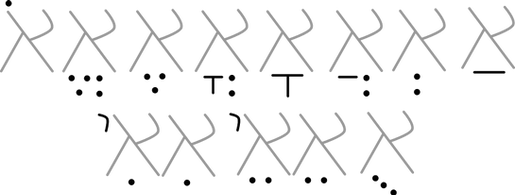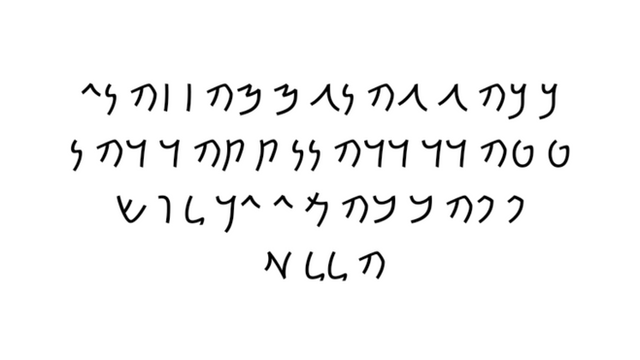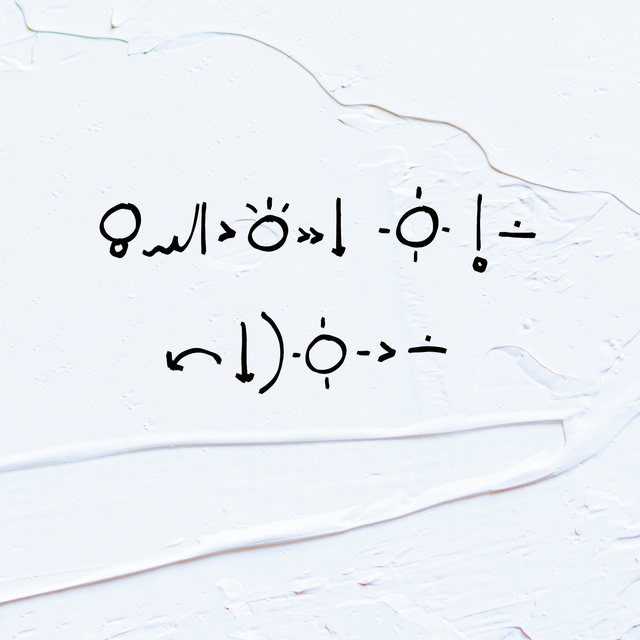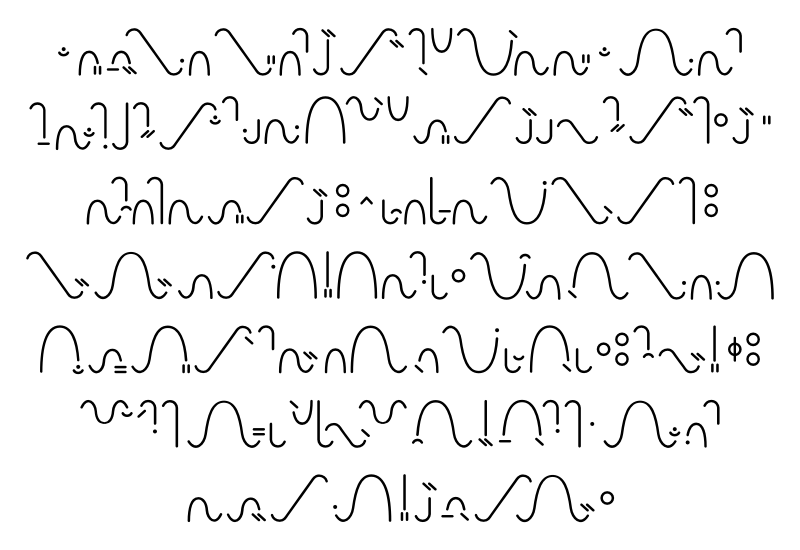
This maps each glyph by shape on the keyboard. Vowel makers than are not solo have to be added manually.
Hi, I showed this font to my friends and Linguistics teacher and everyone I have showed this to thinks this is a really interesting font to use and I love the amount of work you put into creating this. My only problem is that the sounds don't match the Qwerty keyboard; it makes it difficult to type without looking at the keyboard document constantly. The only things I would change would be to match the symbol to the letter on the key. And if it were possible some kind of typing system that would allow the proper combination of vowels and consonants; ex: typing using a Japanese keyboard that changes the individual characters into kanji. I hope this font can be used more widely; it's a very elegant font.
Yeah, I know the layout is a bit weird; I chose to do that because the values for the sounds are arbitrary and basing it off the English model just seemed too constraining. I guess the way how to do that would to do two versions with different letter assignments, one that's more phonetic and one that's based on shape. The reason why I didn't think about this more before now is that it's something I used myself so I chose the most technical but theoretically accurate mapping.
The diacritics don't combine because I have very little knowledge on how to engineer and program fonts. The variable vowel positioning system just seems a little complex, especially since in the original form as seen here you can put vowels at both the beginning and end of a letter. Mapping it to kanji/hanzi doesn't make too much sense as it's more like any of the Brahmic-derived writing systems like Devanagari with special non-vowel carrying forms of the letters, but it's like Arabic scripts in the fact that vowels are added in simple forms to the consonants.
So the reason why it's like this is because it was meant mostly for my own use and I don't know much about making fonts.